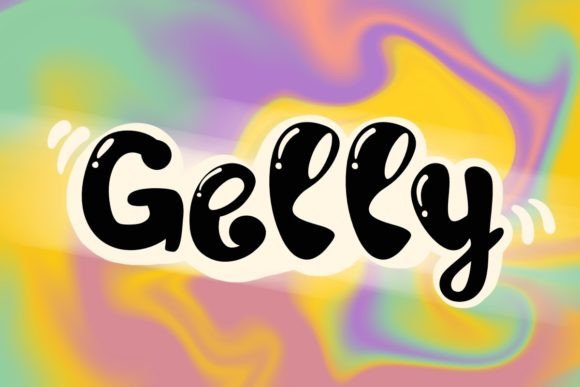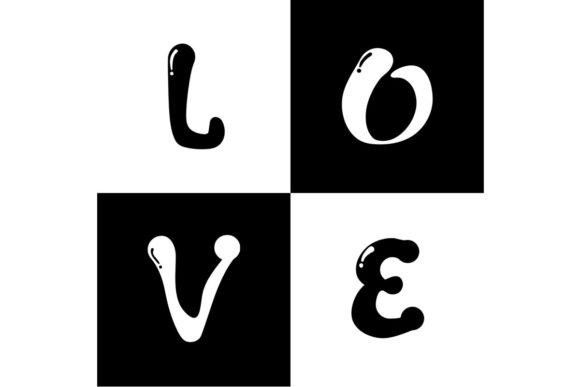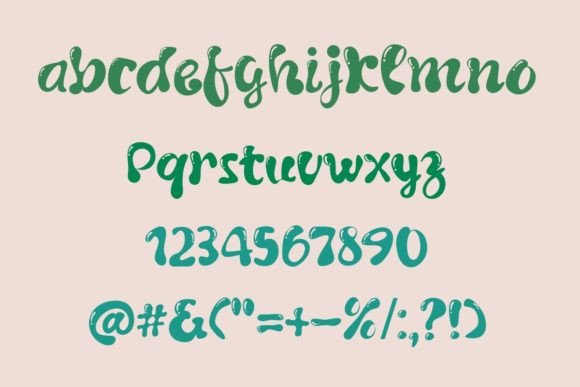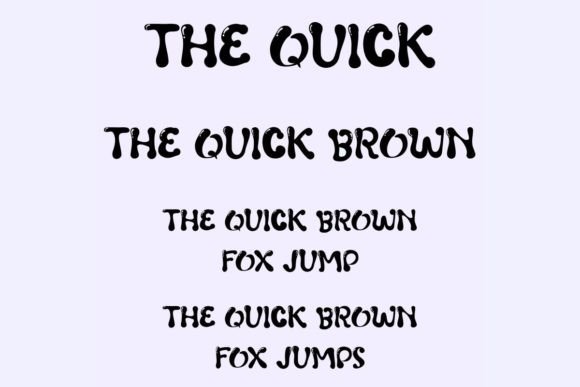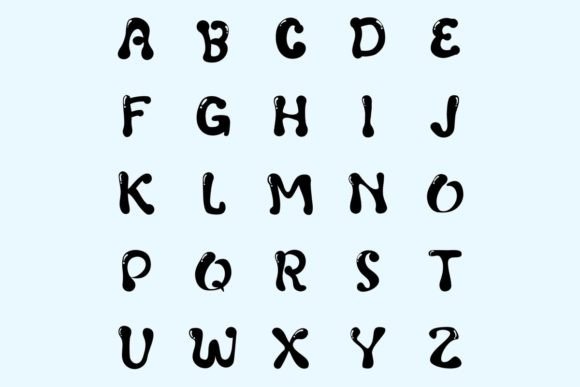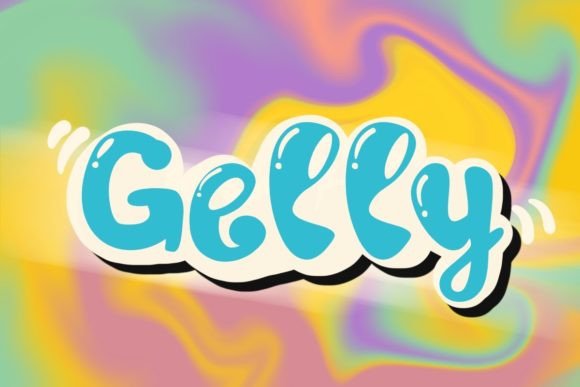
Cute Gelly Font: Add a Touch of Playfulness to Your Designs
Are you looking for a font that can add a dash of fun and playfulness to your designs? Look no further than the Cute Gelly Font! This versatile display font is perfect for designers and crafters who want to create eye-catching projects that stand out from the crowd. In this article, we’ll take a closer look at the Gelly font, its features, and how you can use it to elevate your designs.
What is Gelly Font?
Gelly is a fun and versatile display font that is designed to bring a touch of playfulness to your designs. With its smooth curves and charming letterforms, Gelly is the perfect font for projects that require a bit of whimsy and personality. Whether you’re creating greeting cards, posters, or social media graphics, Gelly is sure to add a delightful flair to your work.
Key Features of Gelly Font
- Smooth Curves: Gelly’s smooth curves give it a friendly and approachable feel, making it perfect for designs that require a bit of warmth and personality.
- Charming Letterforms: Each letterform in Gelly is carefully crafted to be both visually appealing and easy to read, making it perfect for use in a variety of design projects.
- Versatile: Gelly is a versatile font that can be used in a wide range of design projects, from greeting cards and posters to social media graphics and more.
Use Cases for Gelly Font
Gelly is a versatile font that can be used in a wide range of design projects. Here are a few ideas to get you started:
- Greeting Cards: Add a touch of playfulness to your greeting cards with Gelly’s smooth curves and charming letterforms.
- Posters: Create eye-catching posters with Gelly’s bold and playful design.
- Social Media Graphics: Use Gelly to add a bit of personality to your social media graphics and stand out from the crowd.
- Crafting Projects: Gelly is perfect for crafters who want to add a personal touch to their projects, from scrapbooking to DIY signs.
Why Choose Gelly Font?
So why choose Gelly font for your next design project? Here are a few reasons:
- Easy to Read: Gelly’s charming letterforms are easy to read, even at small sizes.
- Highly Versatile: Gelly can be used in a wide range of design projects, from digital designs to print projects.
Tips for Using Gelly Font
Here are a few tips for using Gelly font in your design projects:
- Experiment with Colors: Gelly’s playful design looks great with a wide range of colors, so don’t be afraid to experiment and find the perfect combination for your project.
- Use it as a Display Font: Gelly is perfect for use as a display font, so try using it to add a bold and playful touch to your designs.
- Pair it with Other Fonts: Gelly pairs well with a wide range of fonts, so try pairing it with other fonts to create a unique and eye-catching design.
In conclusion, the Cute Gelly Font is a fun and versatile display font that is perfect for designers and crafters who want to add a touch of playfulness to their designs. With its smooth curves and charming letterforms, Gelly is sure to bring a delightful flair to any project. Whether you’re creating greeting cards, posters, or social media graphics, Gelly is a great choice for any design project. So why not give Gelly a try and see how it can elevate your designs?